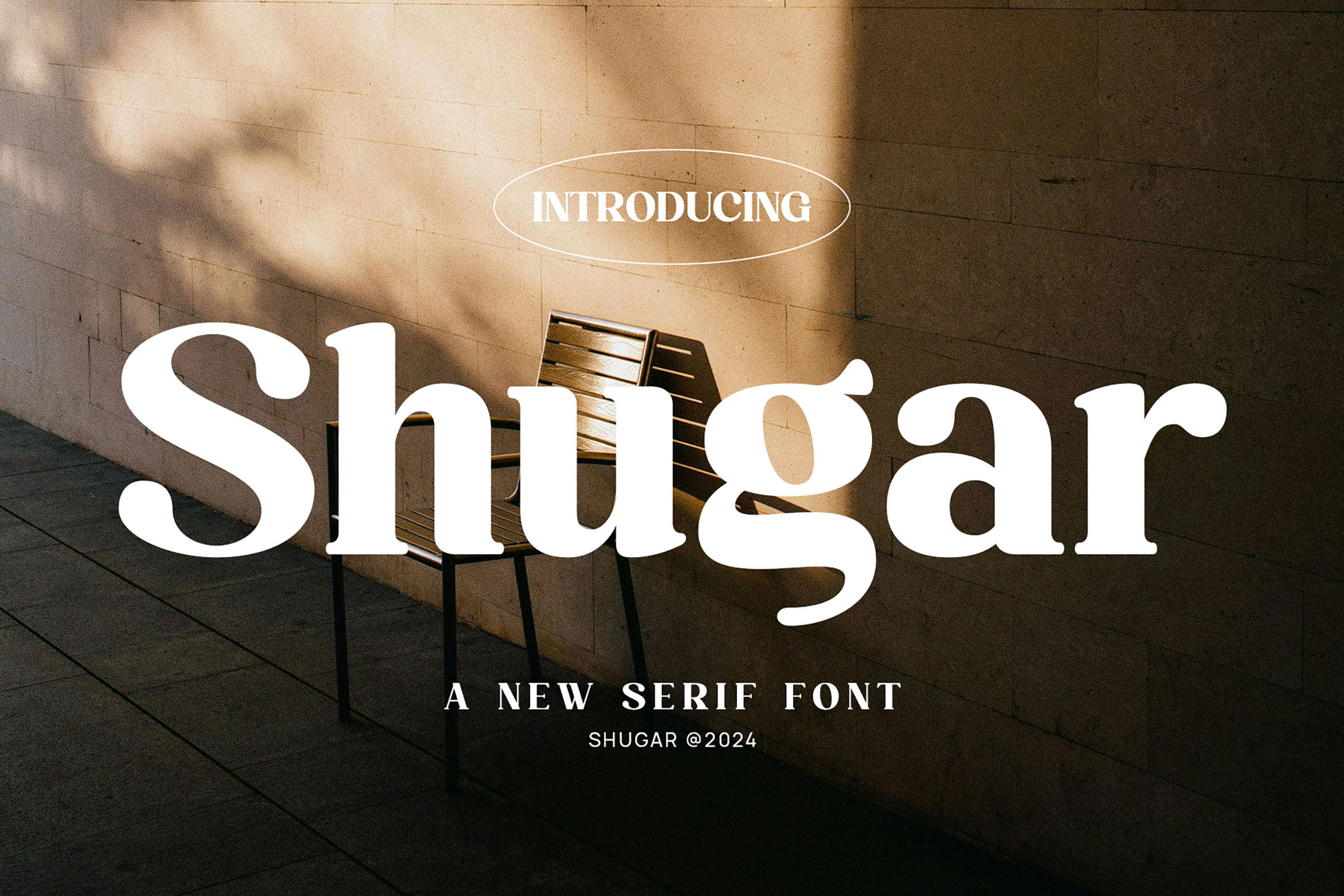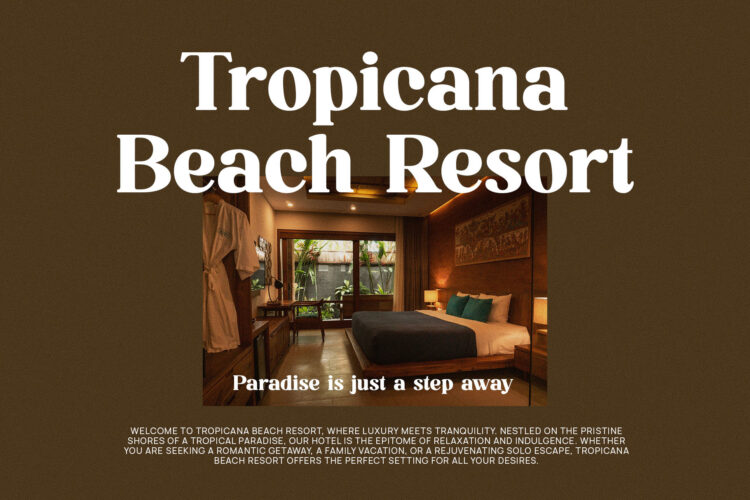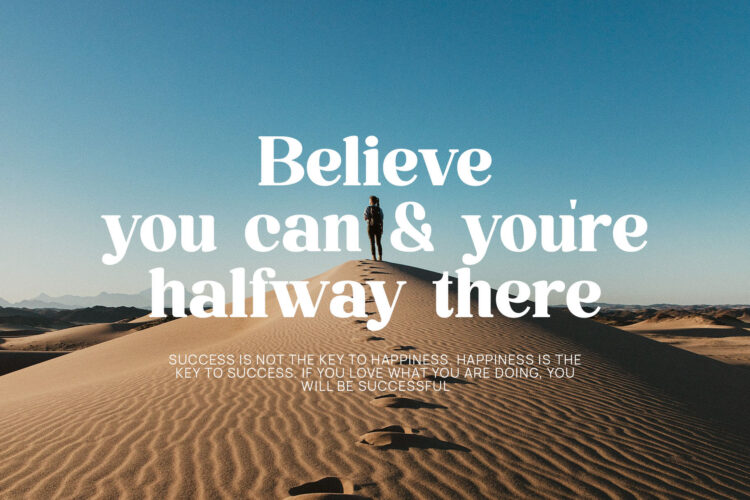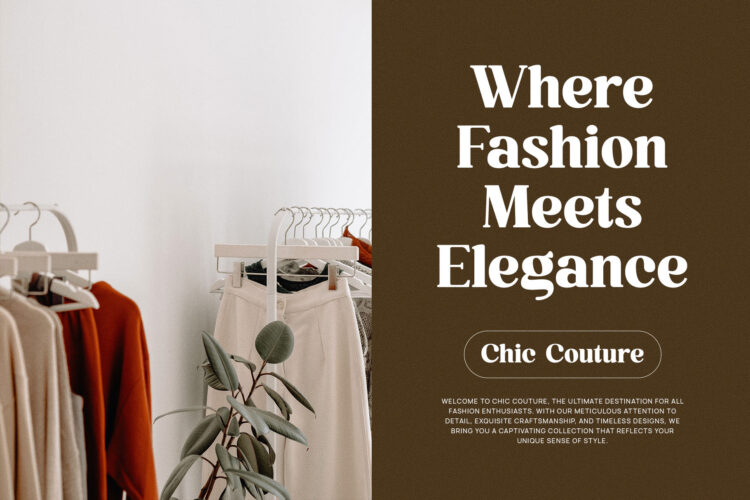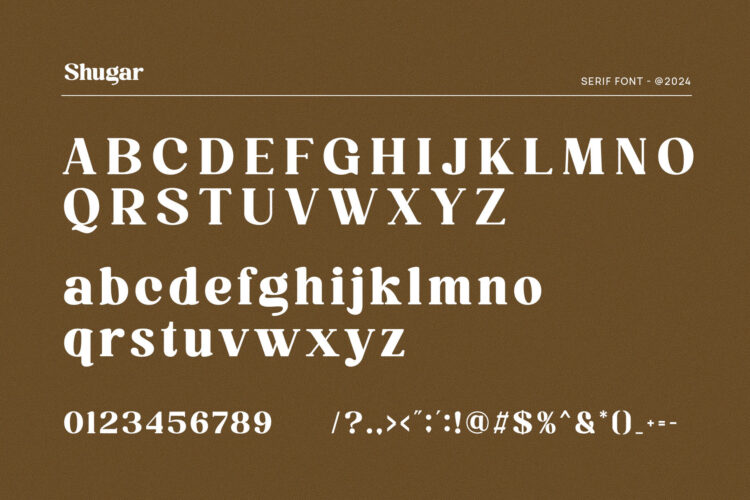
Introducing our new Shugar, modern serif font with elegant style this is perfect for branding, logos, invitation, magazines, product packaging and more.
Shugar – Classy & Stylish Serif